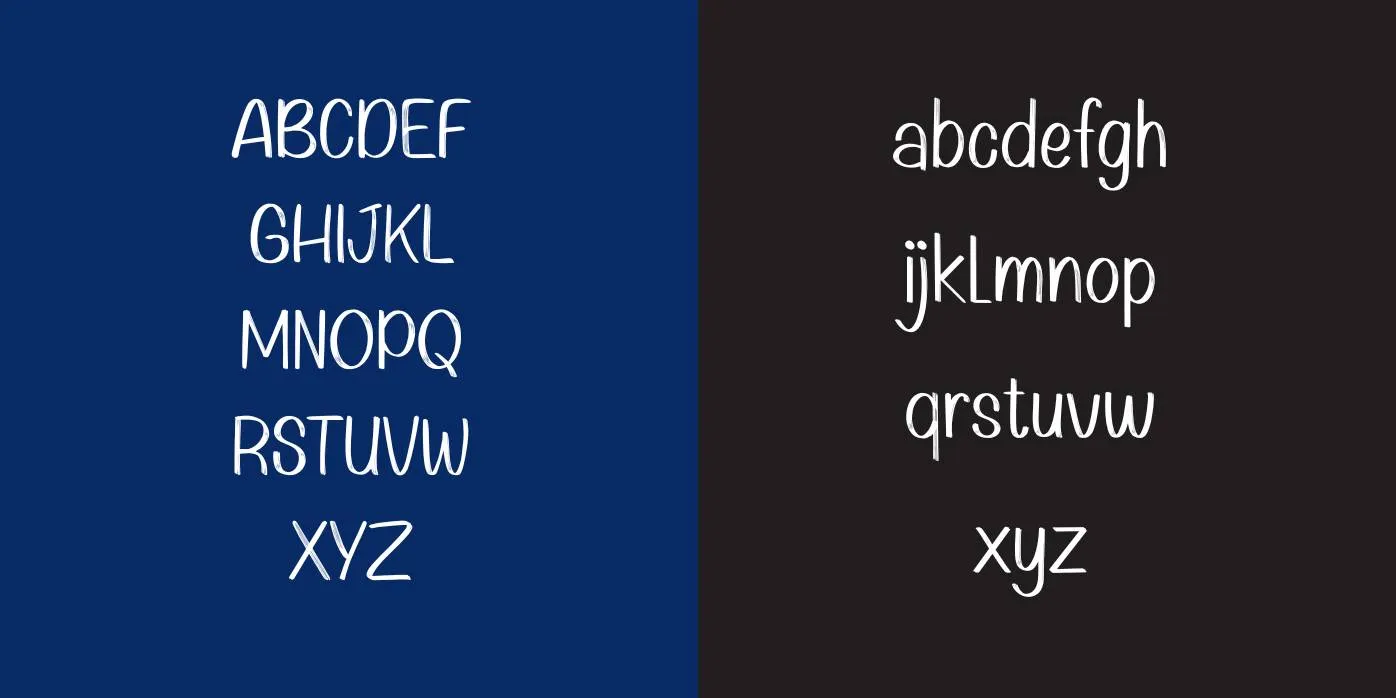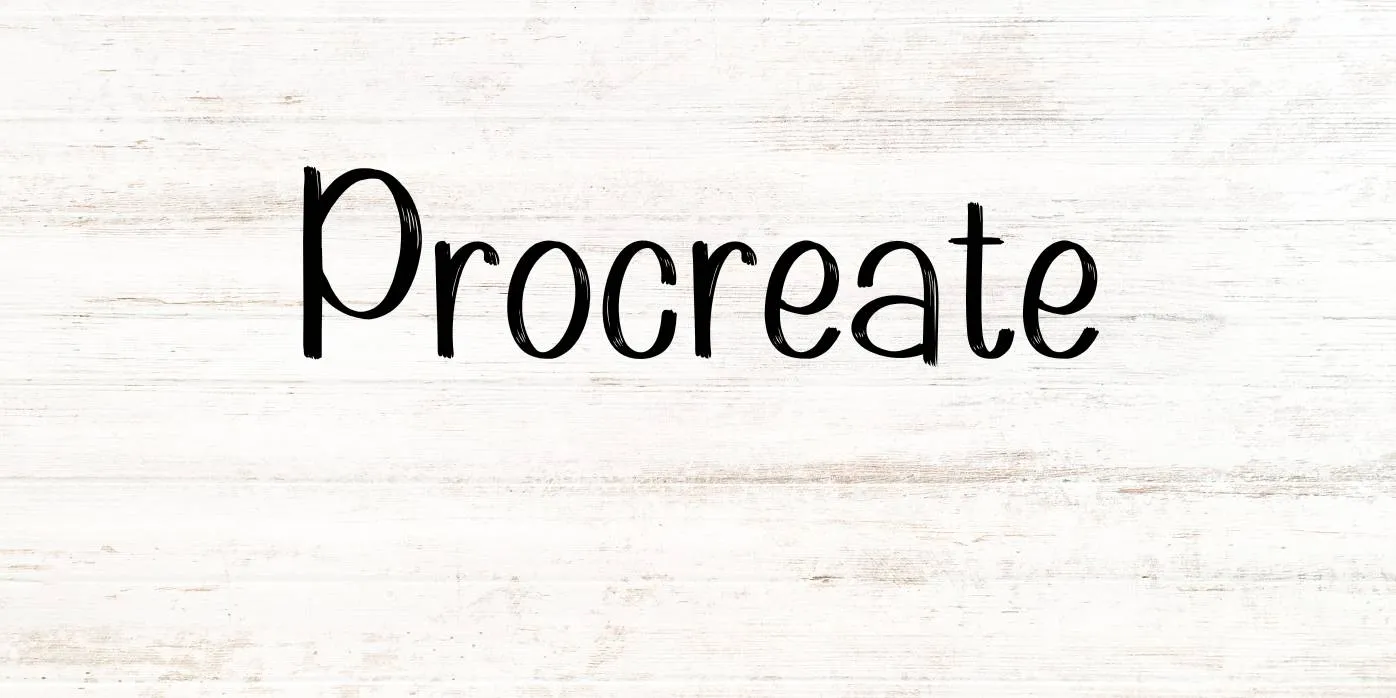
Procreate Font
The Procreate Font is a very interesting script typeface. This font is designed by Sugeng Choirul Creator. It was created on 11-11-2021. It has high reliability because of its clear look.
It has many different features which can be used in many projects such as 201 characters, 155 glyphs, and 1000 units per Em. Unicode supported by this font is 2.0 and BMP only. The weight of the font is semi-light and its width is medium. You can also use this font for pairing with other fonts like grim reaper font to give a more attractive look to your projects.
Usage It is a very neat and clear font and you can make many different designs by using this font. This font has a complete character set like small letters, capital letters, punctuations, symbols, and special characters. This Typeface can be used to make attractive headings and titles by using this font. To make logos for different brands and organizations it is also a very nice choice.
You can make both types of projects print and digital by using this font. To make attractive social media posts and cover letters you can use this font as well. You can make colorful templates with this font. you can use this font for making attractive YouTube thumbnails.